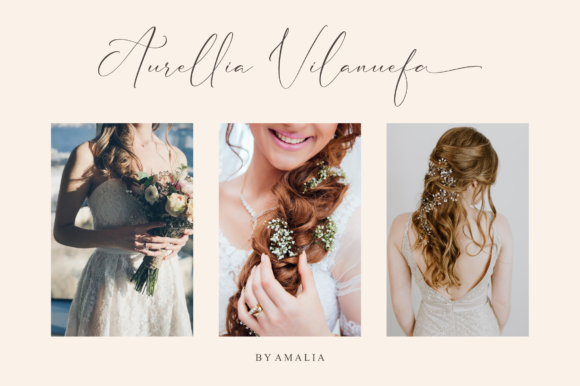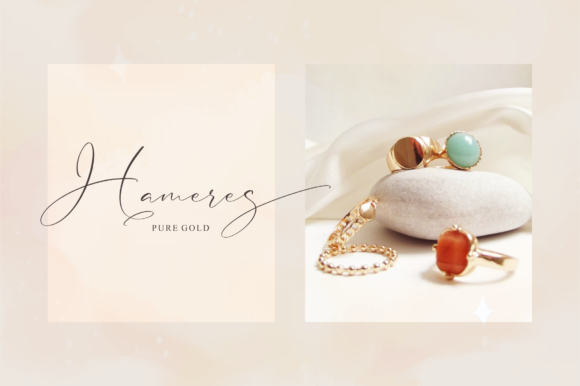
Hatterful Amalia Font
db-ku.com - Script & Handwritten -- Hatterful Amalia is a fashionable and delicate script font. It is suitable for any projects such as: logos, branding projects, label, photography, watermark, special events, and all your other lovely projects that need a beautiful script taste. This font is PUA encoded which means you can access all of the glyphs and swashes with ease!